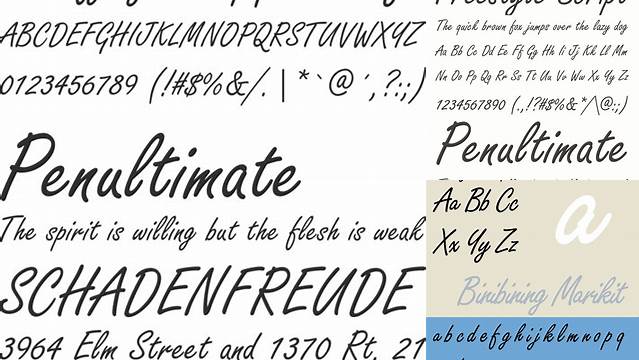
Freestyle Script Regular Font: The Ultimate Guide
Let's dive deep into the world of Freestyle Script Regular font, guys! This font is super popular, and for good reason. It’s got that cool, handwritten feel that can add a touch of elegance and personality to any project. Whether you're designing invitations, crafting logos, or just looking for a stylish font for your website, understanding the ins and outs of Freestyle Script Regular can really up your game. So, buckle up, and let’s explore everything you need to know about this amazing font.
What Makes Freestyle Script Regular Special?
When it comes to fonts, Freestyle Script Regular stands out for its unique blend of casual and elegant vibes. It's not your typical stiff and formal typeface; instead, it brings a relaxed, handwritten touch to any design. This makes it perfect for projects where you want to convey a sense of personality and warmth. Think about wedding invitations, greeting cards, or even branding materials for businesses that want to appear approachable and friendly. The beauty of this font lies in its ability to make your text look like it was personally crafted, adding a human element to your designs. Plus, its readability is surprisingly good, making it a versatile choice for various applications, from print to digital media. It’s no wonder so many designers and creatives turn to Freestyle Script Regular when they need a font that’s both stylish and accessible.
History and Origins of Freestyle Script Regular
The history of Freestyle Script Regular is pretty interesting! Designed by Martin Wait back in 1981, this font was created to mimic the flowing strokes of a calligrapher’s pen. Martin Wait aimed to capture the essence of natural handwriting, and he totally nailed it. Originally, it was part of the Letraset font library, which was a big deal back in the day. Letraset was known for its innovative approach to typography, and Freestyle Script quickly became one of their most popular fonts. Over the years, it has been embraced by designers worldwide and has found its way into countless projects, from advertising campaigns to personal stationery. The font's enduring appeal lies in its timeless quality; it manages to feel both classic and contemporary at the same time. So, next time you use Freestyle Script Regular, remember you're working with a piece of design history!
Common Uses for Freestyle Script Regular
Freestyle Script Regular is incredibly versatile, making it a go-to choice for a wide range of projects. You'll often see it used in wedding invitations and greeting cards, where its elegant and personal touch adds a special flair. It's also a popular choice for branding materials, especially for businesses that want to project a friendly and approachable image. Think about logos for bakeries, boutiques, or handmade crafts – Freestyle Script can help create a memorable and inviting brand identity. Beyond print, this font shines in digital designs as well. It's great for website headers, social media graphics, and even email signatures. Its readability, combined with its stylish appearance, makes it a fantastic option for adding a touch of personality to your online presence. Whether you're designing a logo, creating a poster, or sprucing up your website, Freestyle Script Regular can bring that extra something special to your creations.
Freestyle Script Regular vs. Other Script Fonts
When you're choosing a script font, it's important to understand how Freestyle Script Regular stacks up against the competition. Unlike some script fonts that can be overly formal or difficult to read, Freestyle Script strikes a perfect balance between elegance and accessibility. Some fonts might have elaborate swirls and flourishes that make them hard to use in large blocks of text, but Freestyle Script remains legible even in longer passages. Compared to more modern, geometric script fonts, Freestyle Script has a more organic, handwritten feel that adds warmth and personality to your designs. It's also less structured than calligraphy-based fonts, making it a bit more versatile for everyday use. Ultimately, the best script font for your project depends on the specific look and feel you're going for, but Freestyle Script Regular is a solid choice if you want something that's both stylish and easy to work with. Its unique charm and readability make it a standout option in the world of script fonts.
Designing Logos with Freestyle Script Regular
Using Freestyle Script Regular for logo design can give your brand a unique and memorable identity. Its handwritten style adds a personal touch that can help your logo stand out from the crowd. When designing a logo with this font, think about how you can incorporate it into the overall brand aesthetic. Freestyle Script works particularly well for brands that want to convey a sense of creativity, authenticity, or friendliness. Consider pairing it with a simpler, more geometric font for body text to create a balanced and visually appealing design. It’s also important to think about the colors and imagery you use alongside the font. Soft, natural colors can complement the font's organic feel, while playful illustrations can enhance its personality. Experiment with different layouts and variations to see what works best for your brand. With a little creativity, Freestyle Script Regular can help you create a logo that truly represents your brand's unique identity.
Creating Wedding Invitations with Freestyle Script Regular
If you're planning a wedding, Freestyle Script Regular is an excellent choice for creating beautiful and elegant invitations. Its flowing script adds a touch of romance and sophistication that's perfect for setting the tone for your special day. When designing wedding invitations with this font, consider using it for the names of the bride and groom, as well as for key details like the date and time of the ceremony. Pair it with a classic serif font for the body text to ensure readability. To enhance the overall design, think about incorporating elegant embellishments like floral motifs, delicate borders, or subtle watercolor backgrounds. Choose high-quality paper stock and printing techniques to give your invitations a luxurious feel. And don't forget to pay attention to the wording – use heartfelt and personal language to make your invitations truly special. With Freestyle Script Regular, you can create wedding invitations that are both beautiful and meaningful.
Using Freestyle Script Regular in Branding Materials
Freestyle Script Regular can be a game-changer when it comes to creating cohesive and impactful branding materials. Its distinctive handwritten style helps to inject personality and warmth into your brand's visual identity, making it more relatable and memorable to your audience. Whether you're designing business cards, letterheads, or marketing brochures, Freestyle Script can add a touch of elegance and sophistication. Use it strategically for headings, taglines, and key messages to draw attention and create a lasting impression. When incorporating it into your branding, make sure it aligns with your brand's overall message and values. For instance, if your brand aims to project a sense of creativity and authenticity, Freestyle Script can be a perfect fit. Consistent use of this font across all your branding materials can help reinforce your brand's identity and create a unified and professional image.
Freestyle Script Regular: The Verdict
So, what's the final verdict on Freestyle Script Regular? It's a versatile, elegant, and timeless font that can add a touch of personality to any design. While it's not always the right choice for every project, it's a valuable asset to have in your font library. Its handwritten style, combined with its readability and versatility, makes it a standout option in the world of script fonts. Whether you're designing wedding invitations, branding materials, or website headers, Freestyle Script Regular can help you create designs that are both beautiful and effective. Just remember to use it strategically, consider accessibility, and pair it with the right fonts and design elements. With a little creativity, you can unlock the full potential of Freestyle Script Regular and create designs that truly shine.